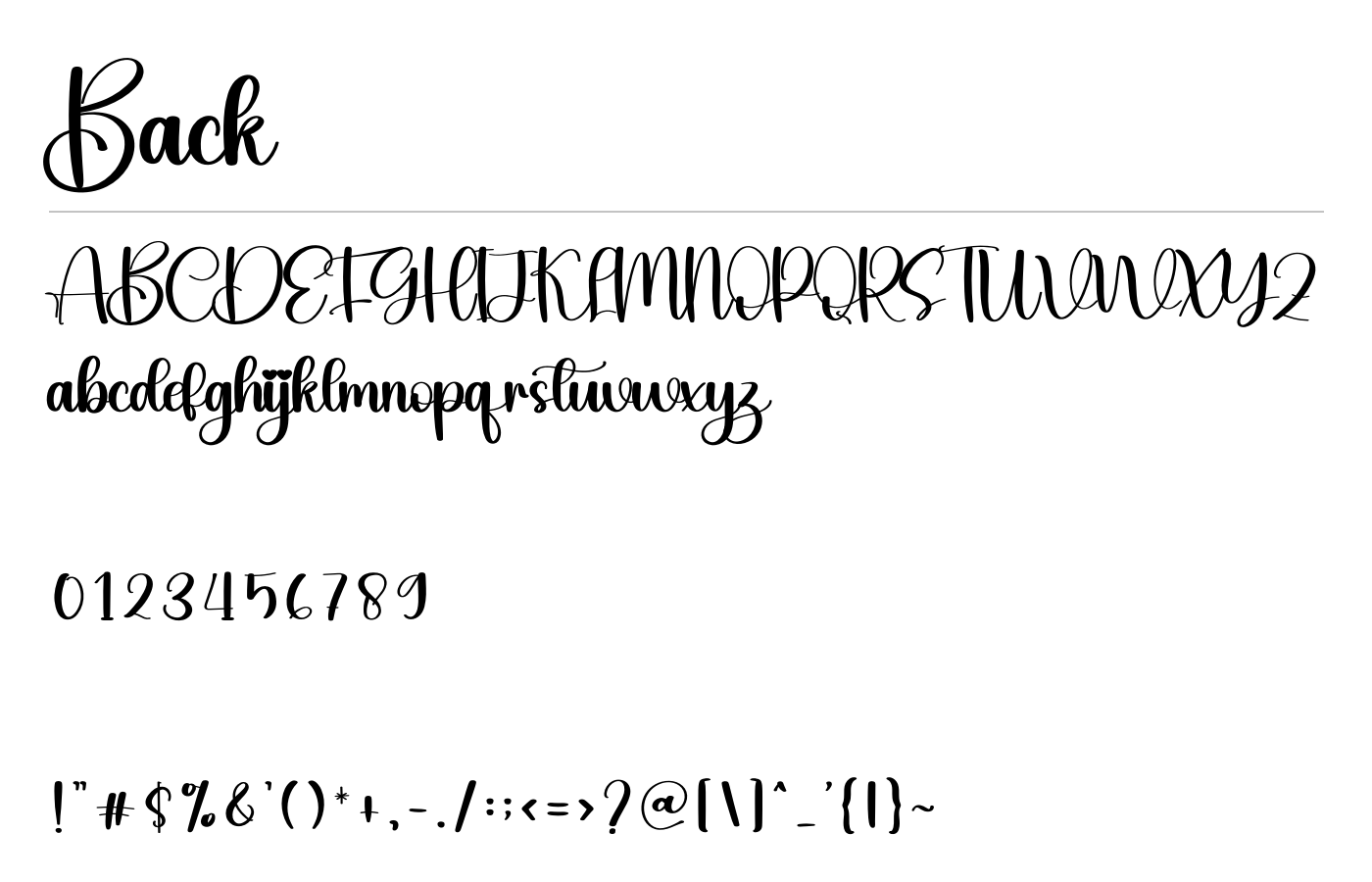
Back Font is a charming script typeface with a playful and elegant personality, featuring flowing, delicate strokes and a mix of thick and thin contrasts that give it a hand-lettered feel. Its distinctive uppercase and lowercase characters, along with stylistic curves and flourishes, make it perfect for creative branding, invitations, and feminine design projects where a touch of warmth and sophistication is desired. This font works especially well in headlines and decorative text, adding a unique, stylish flair to any visual presentation.
Back Font